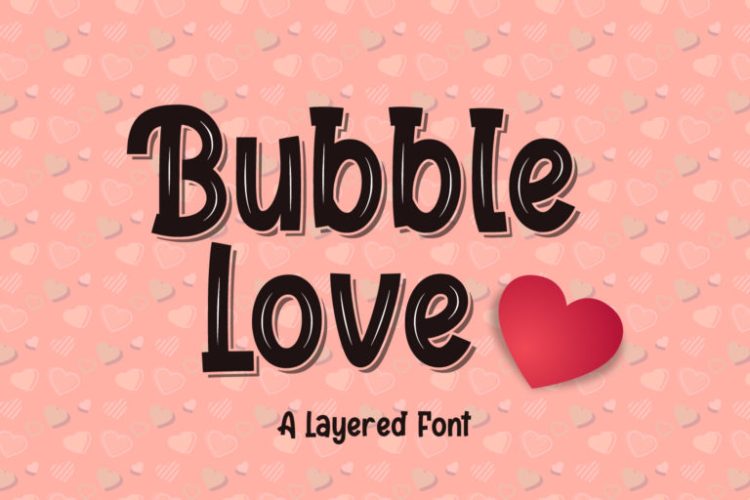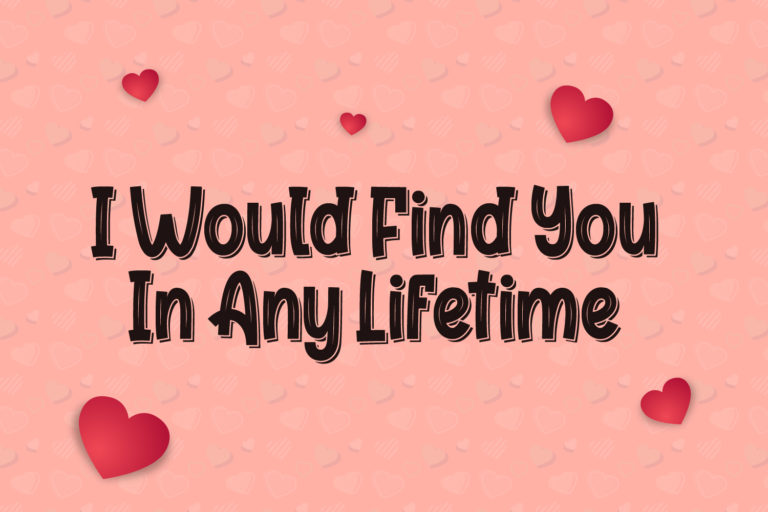
Bubble Love Font
Love has a shape, and that shape is round, warm, and utterly charming. Bubble Love Font is the serif typeface that captures everything delightful about affection, sweetness, and innocent joy — a lovable, rounded serif font that brings genuine emotional warmth to every design it touches.
What makes Bubble Love unique among serif fonts is its deliberate departure from the sharp, angular serifs of traditional typefaces. Every serif here is softly rounded, every terminal gently cushioned, every letterform inflated just enough to feel huggable rather than formal. The stroke contrast is subtle and approachable — enough to signal “serif” to the eye, not enough to feel stuffy or academic. The result is a typeface that carries the visual authority of a classic serif while radiating the warmth and playfulness of a children’s favourite character.
Children’s book publishers and educational content creators reach for Bubble Love when they need children’s publishing typography that captures young readers’ hearts immediately. The rounded, friendly serifs reduce the visual intimidation of text for early readers while maintaining the structural clarity that supports reading comprehension. Valentine’s Day campaign designers, greeting card companies, and romantic gift brands use Bubble Love for its immediate association with love, care, and heartfelt emotion. Baby shower invitation designers, nursery branding specialists, and maternity product companies find it equally powerful for communicating warmth and tenderness.
Sweet food brands — bakeries, confectionery companies, dessert parlours, and specialty candy shops — use Bubble Love to make packaging and signage feel as good as the products inside. The font pairs beautifully with pastel colour palettes, soft watercolour illustrations, and generous white space for maximum visual sweetness.